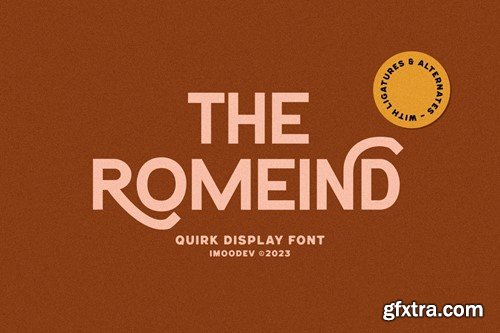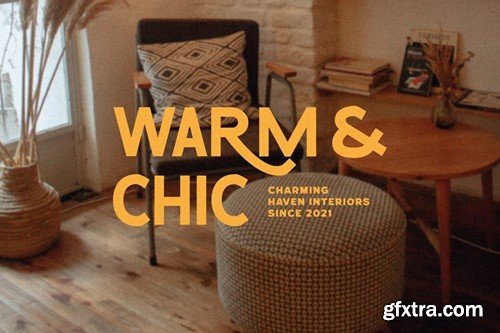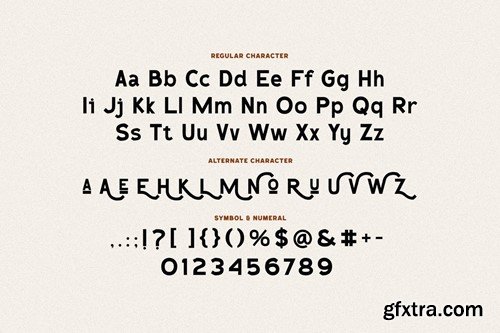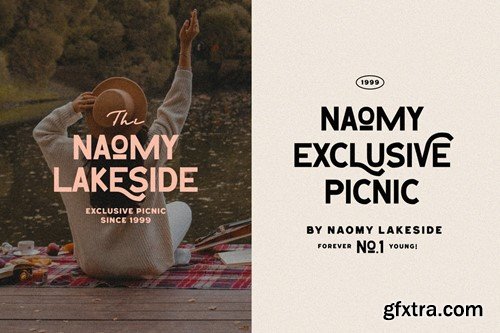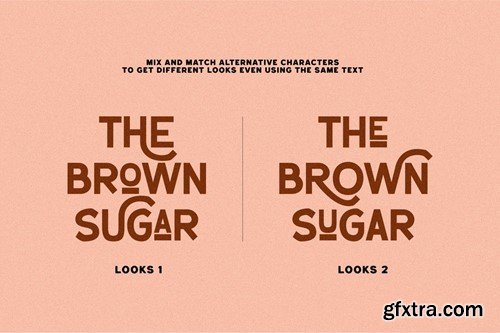
罗马印 - 奇趣无衬线字体 XECN5RH
The Romeind - Quirk Display Font
The Romeind is a quirk display font that has smooth curves and a visual style a can embodies charm and elegance in every lettering, making your work look stunning and attractive. A versatile font that works in both uppercase and lowercase sizes, suitable for a wide variety of projects such as a display font for headings, logo fonts, invitations, branding, book covers, magazine layouts, card, product packaging, product mockup, mugs, posters, labels, editorials, art deco, and any type of advertising purpose. Includes: Features: Thank you for purchasing! Good luck designing! Regards, Imoodev